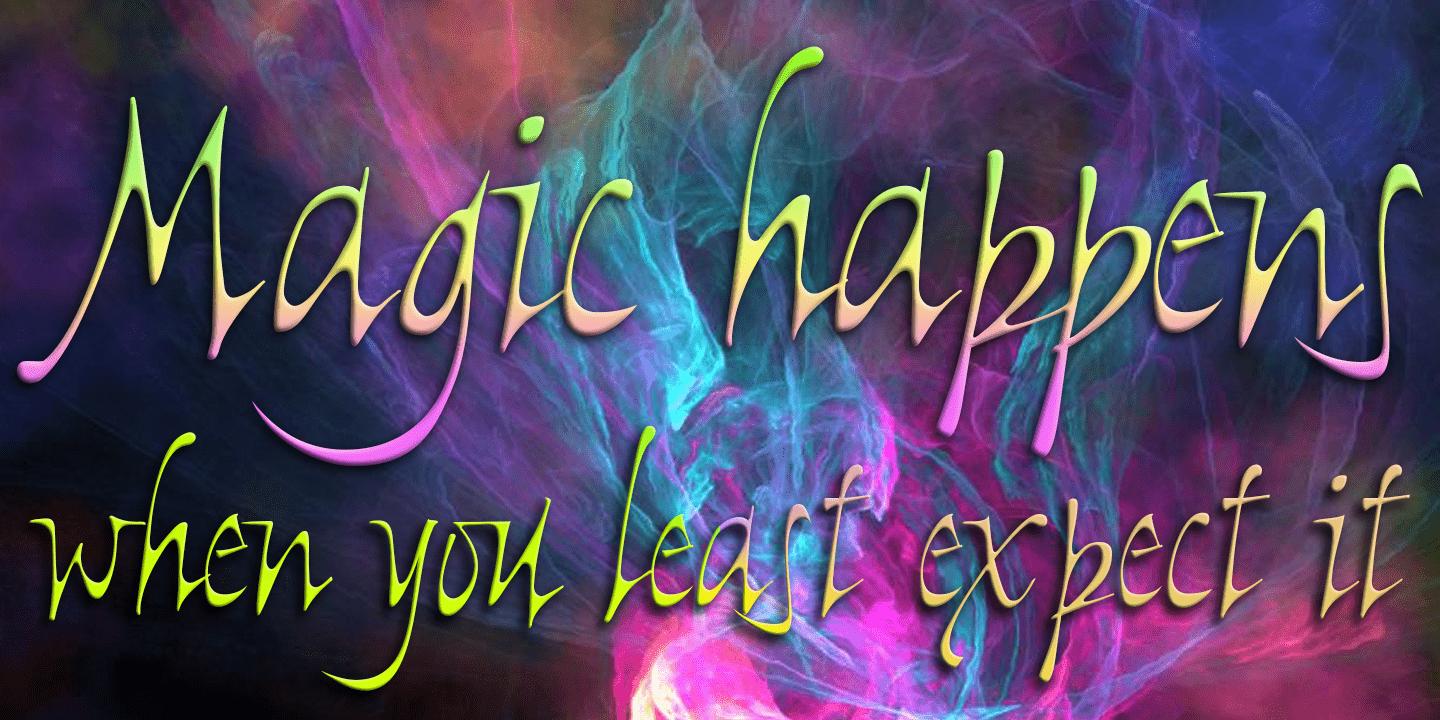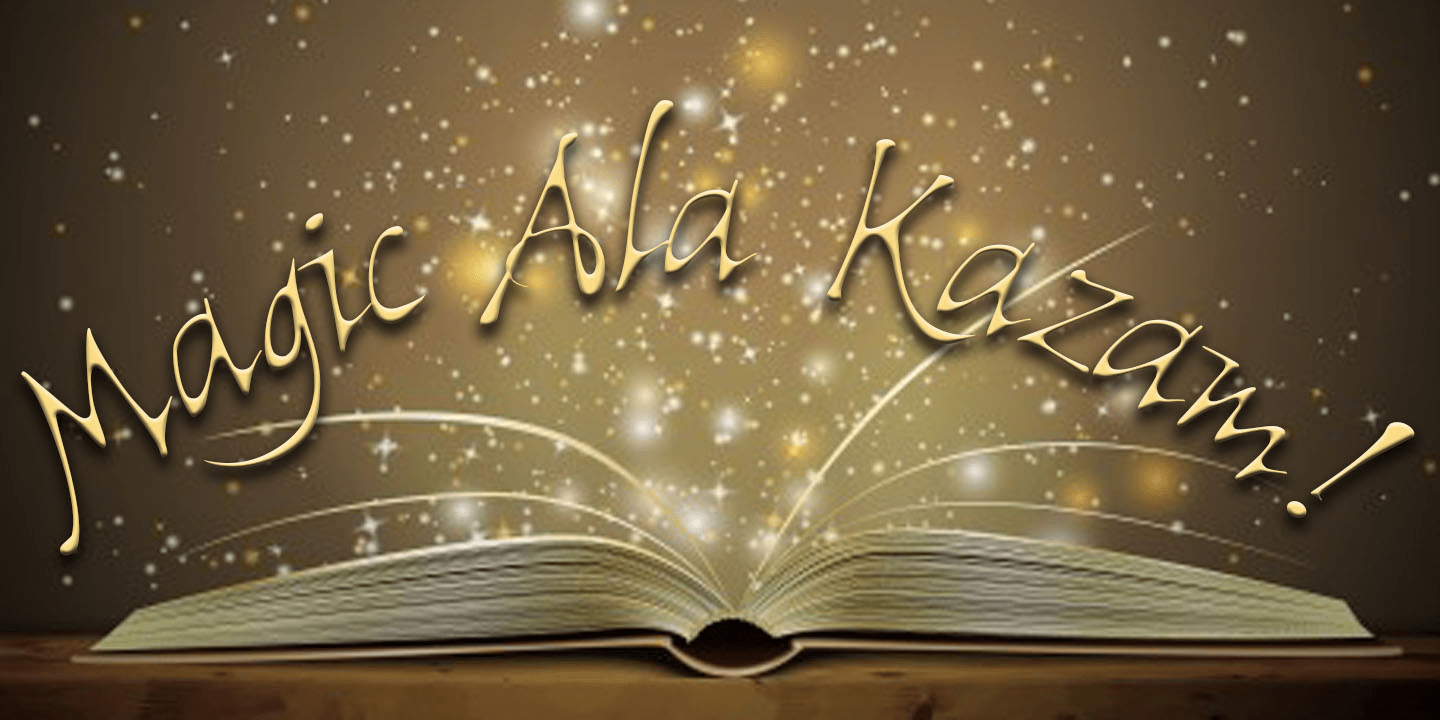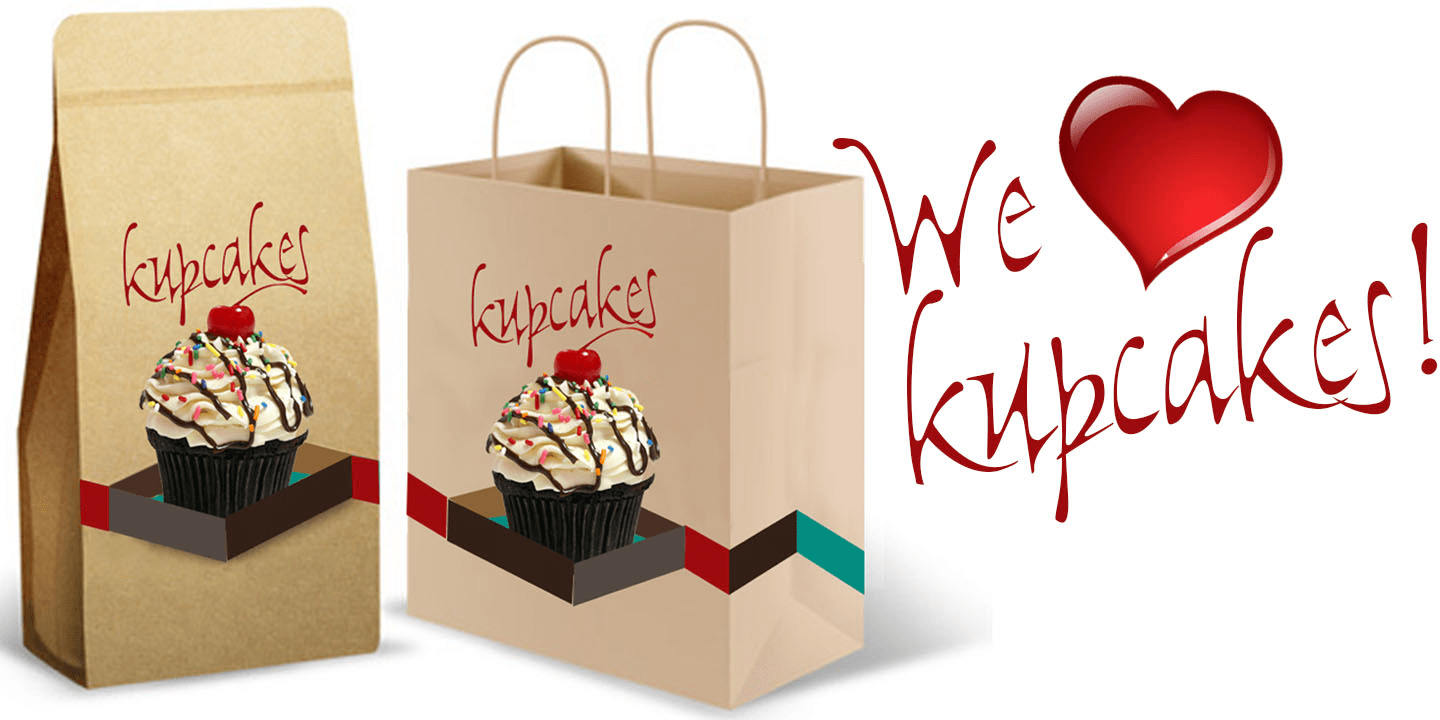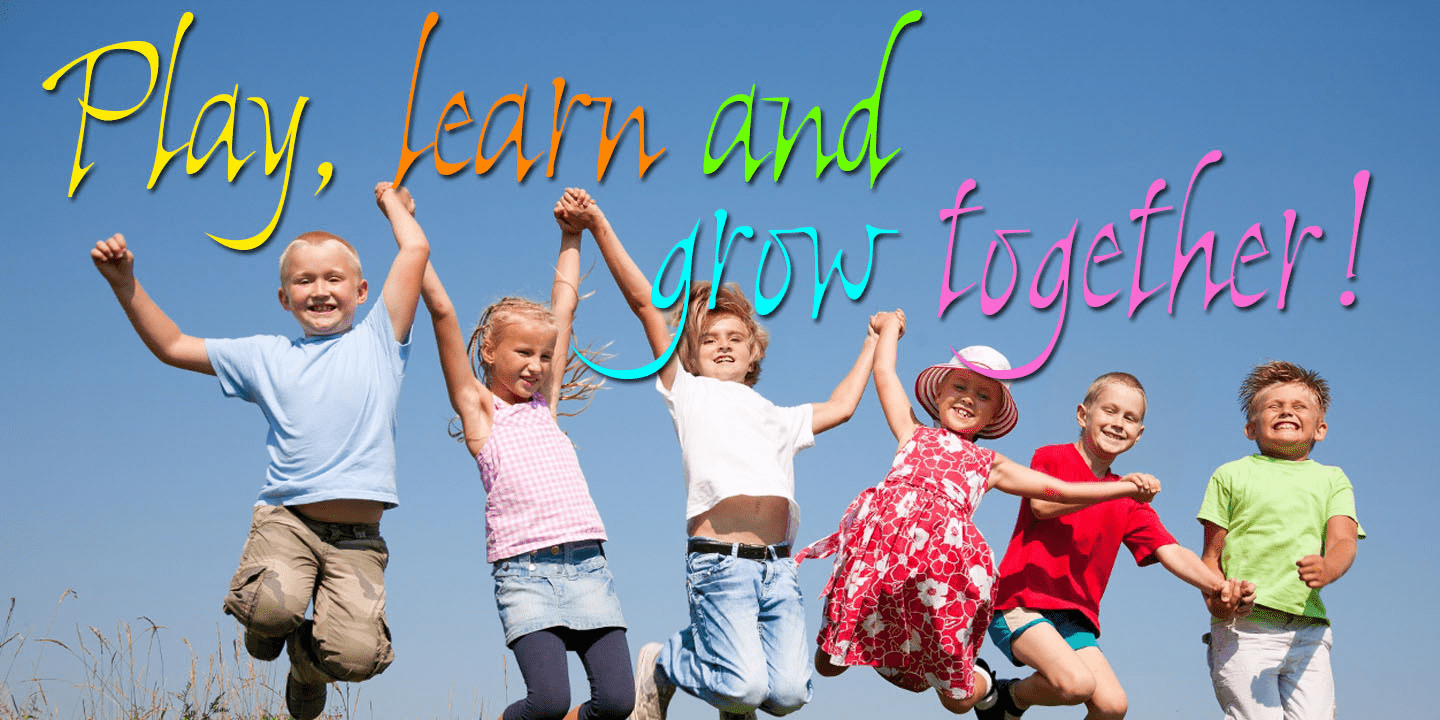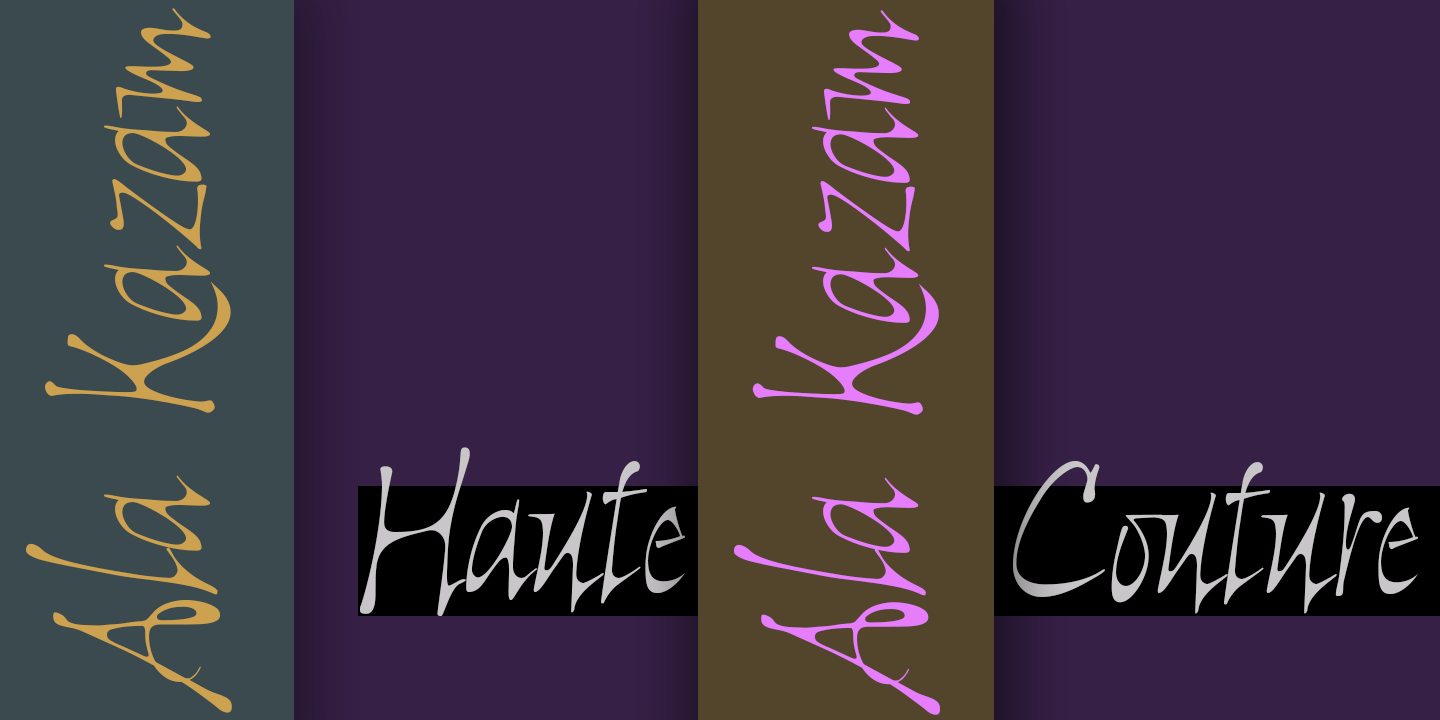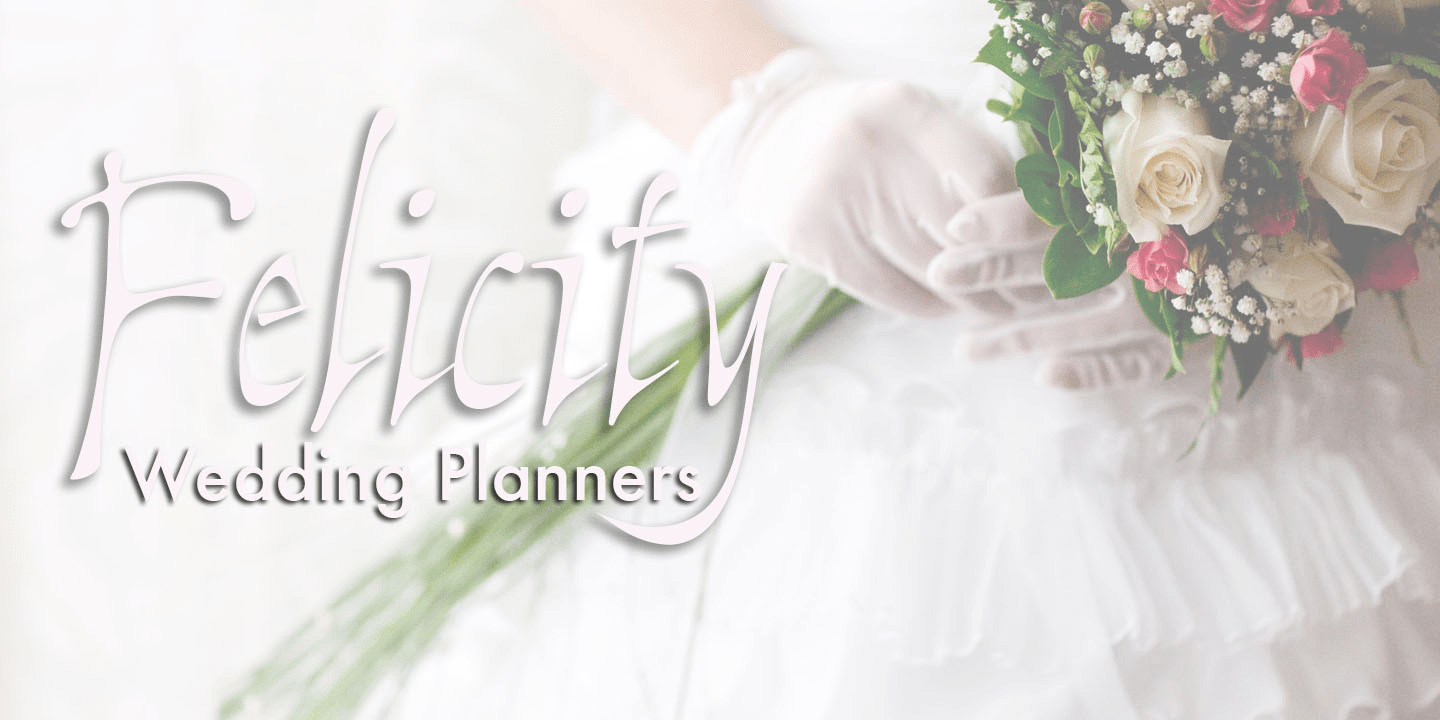
Ala Kazam
Ala Kazam is a new take on Calligraphic fonts. It has all the drama and pen-like quality of the calligraphy genre, but presents as a casual, quirky, magical font. Ala Kazam evokes many moods - it's fun, it's sophisticated, it's fashionable, it's contemporary romance. It's perfect for a host of uses - branding, packaging, kids stuff, fashion, wedding stationery, greeting cards. Vigorous and readable, Ala Kazam has all the features usually included in a fully professional font. Language support includes all European character sets, Greek symbols and all punctuation. Ala Kazam makes use of OpenType features to avoid the mechanical look caused by two identical characters side by side.